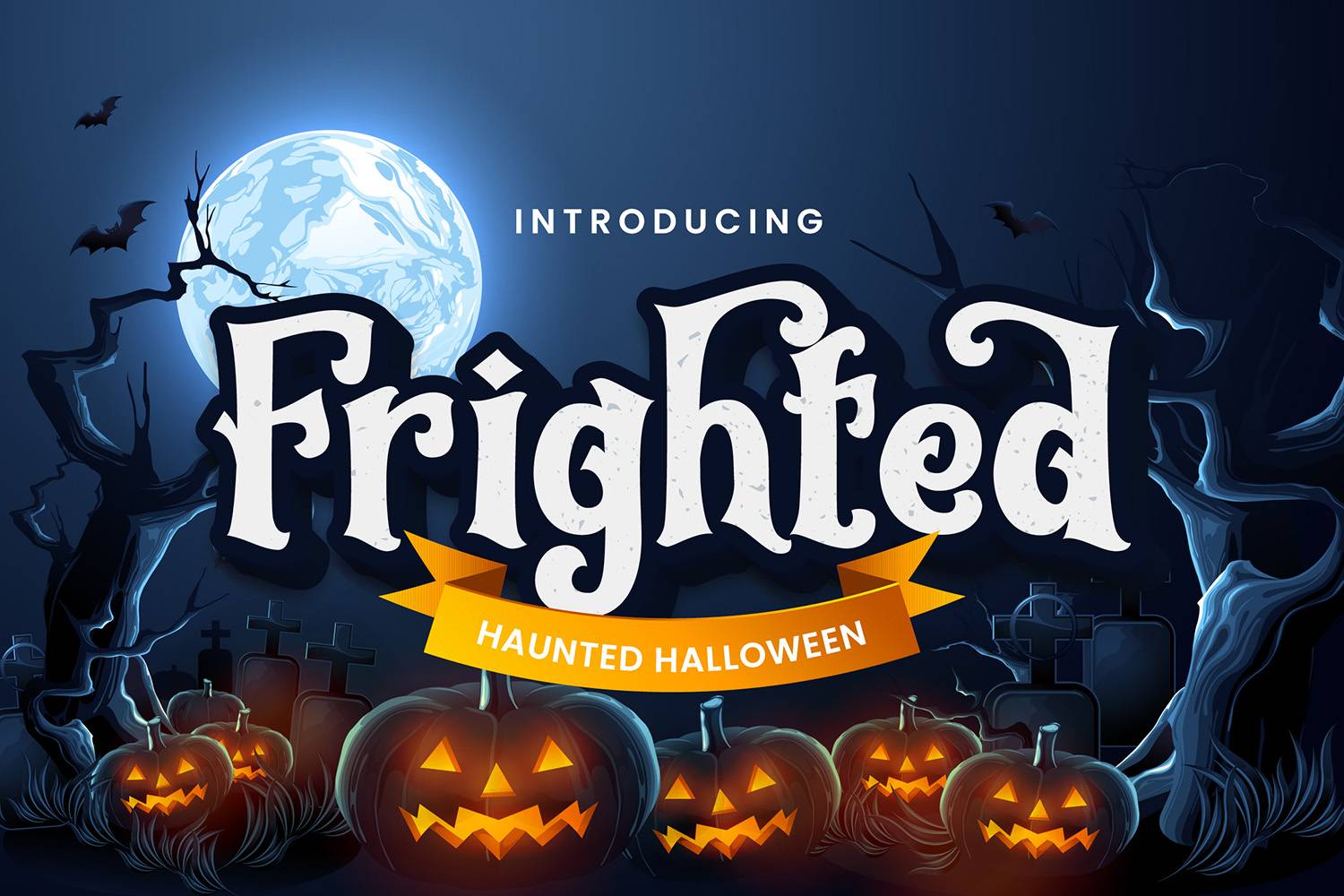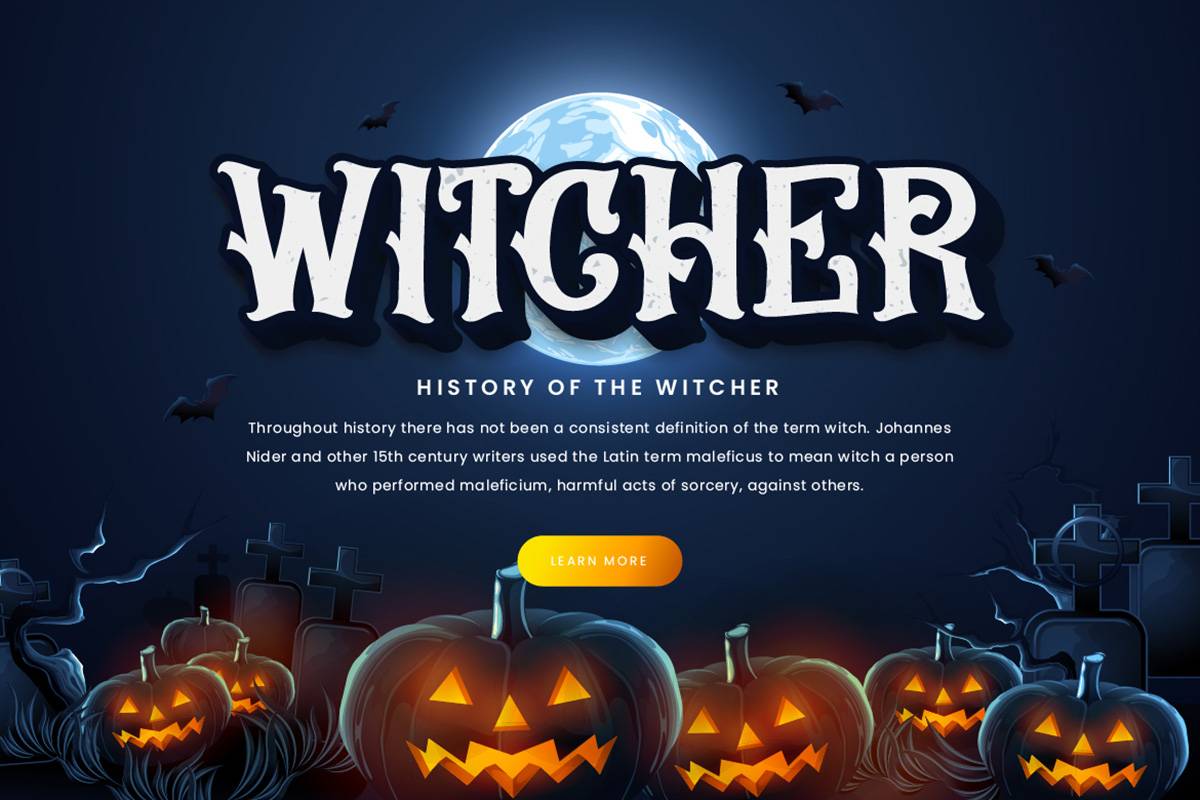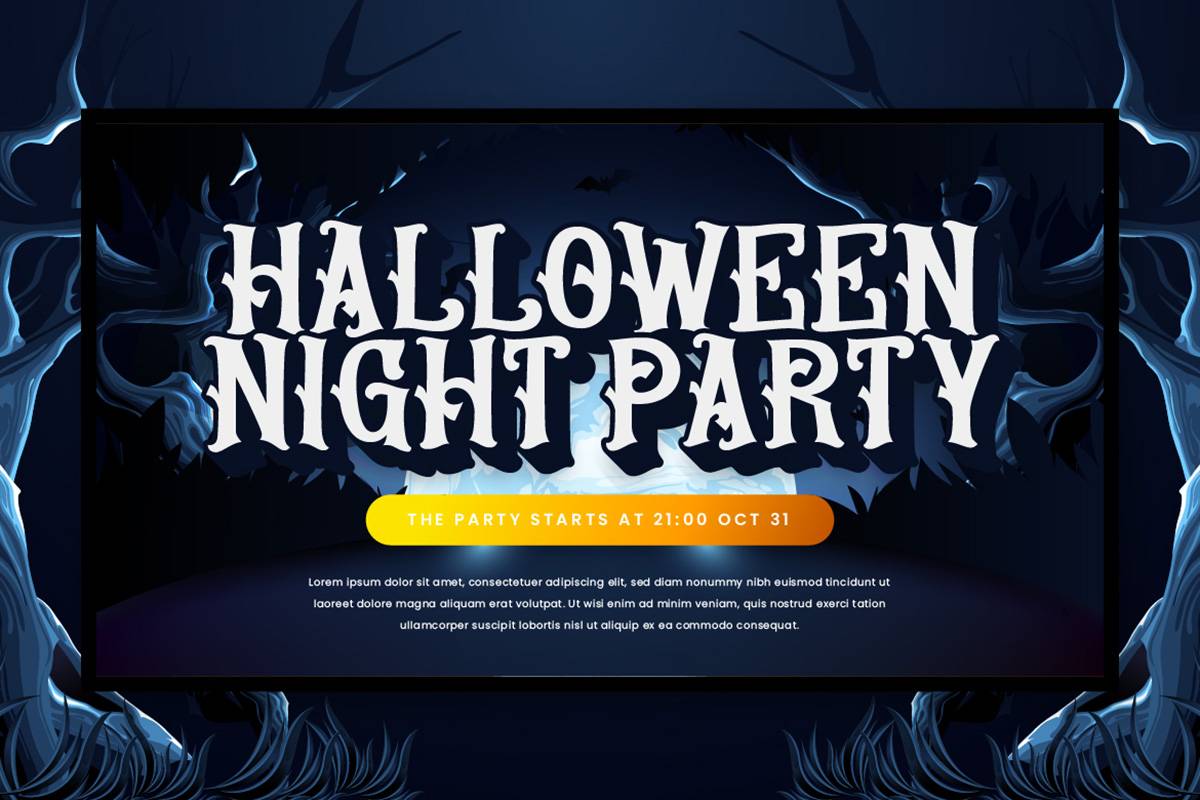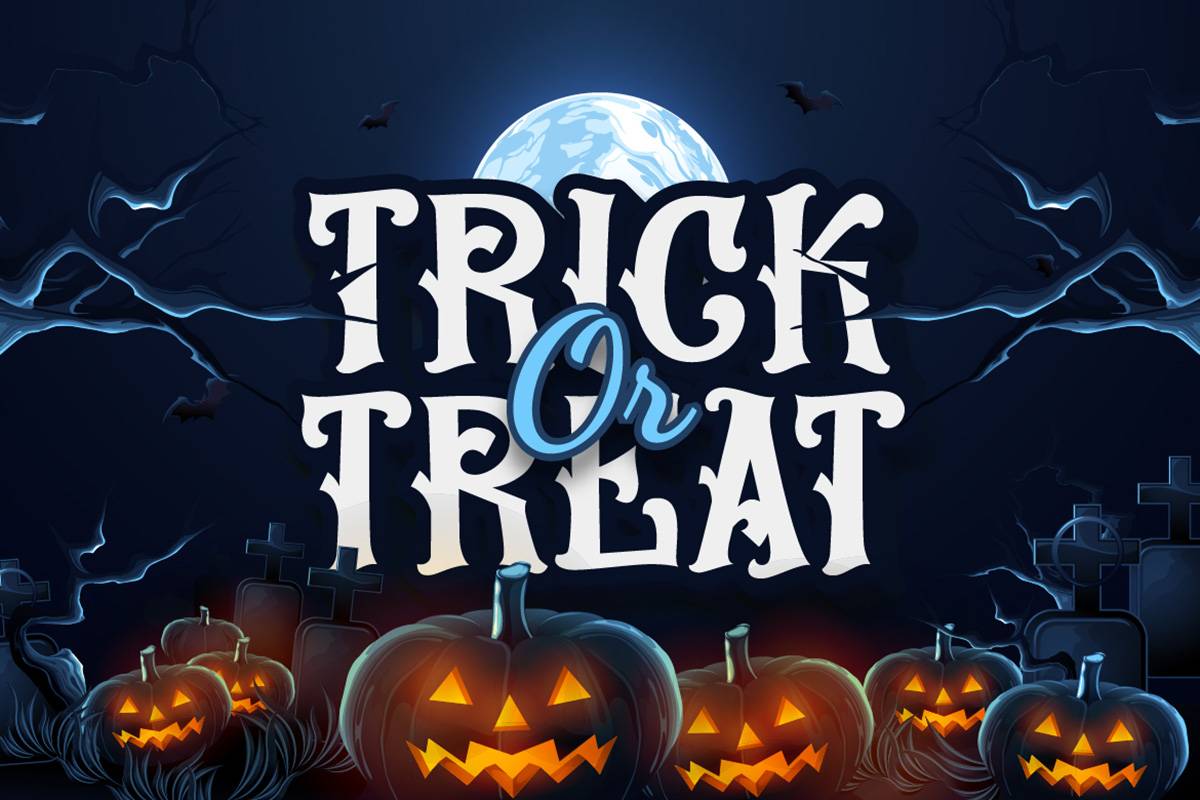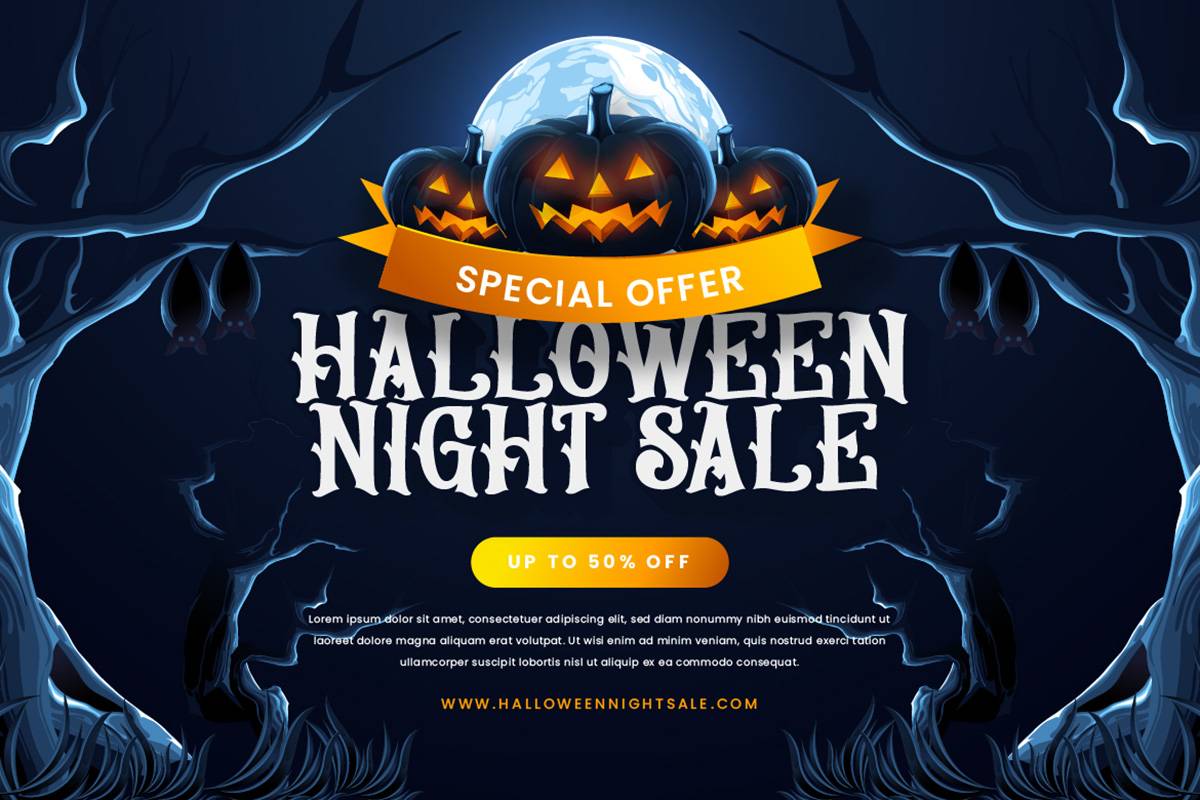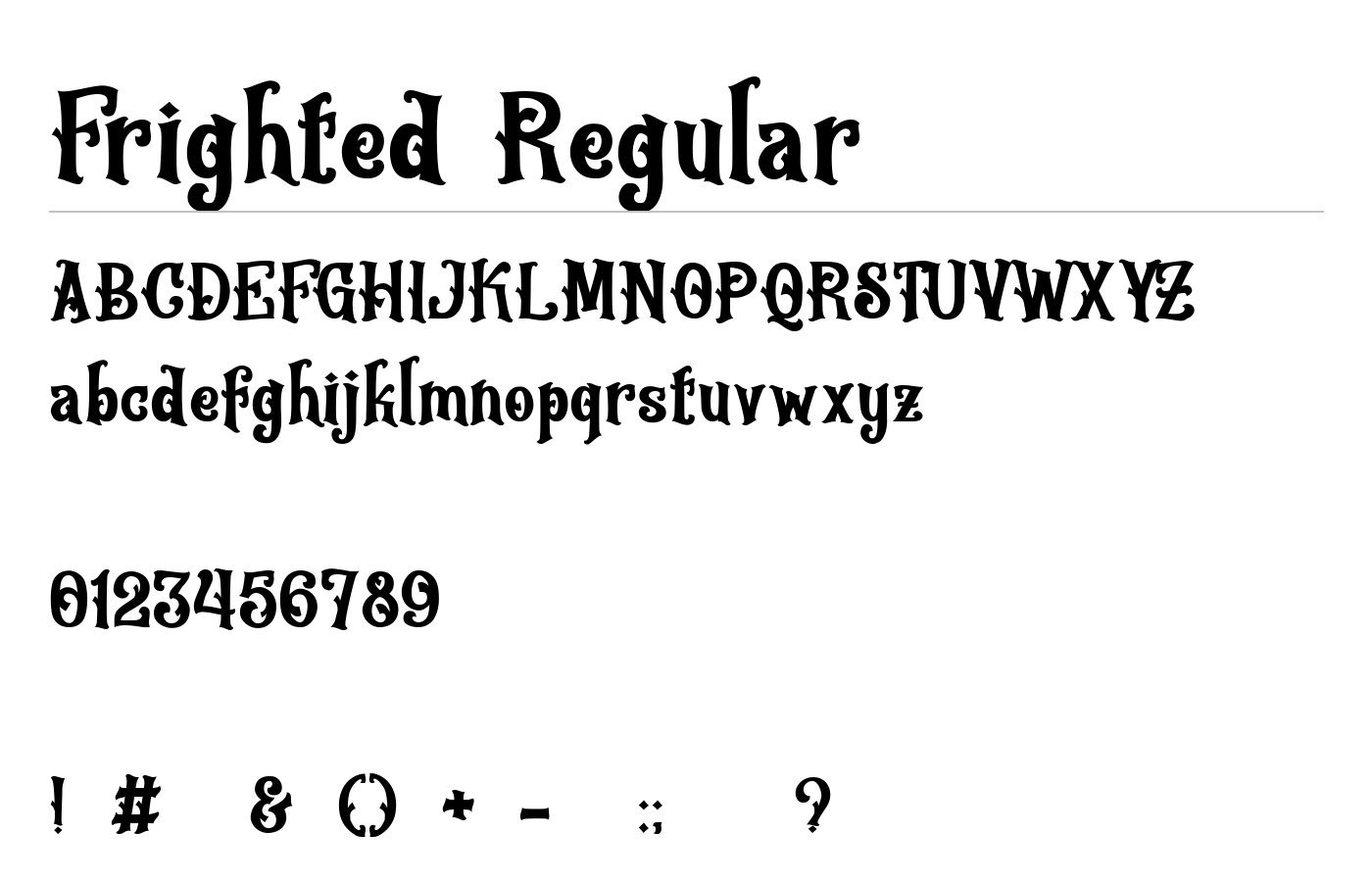
Frighted is a playful serif font with a spooky, vintage vibe characterized by uneven, quirky letterforms and a bold weight. Its unique, slightly distorted shapes with high contrast strokes and curled serifs create a whimsical, eerie atmosphere perfect for Halloween themes, posters, logos, or any creative project seeking a fun yet mysterious feel. This font stands out in headlines or decorative uses, adding personality and charm wherever a touch of frightful fun is desired.
Frighted Font
About Frighted Font